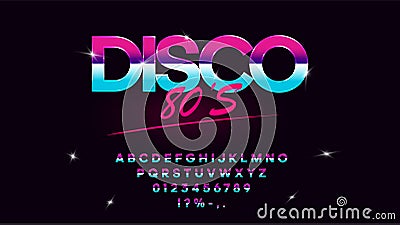
Retrowave Synthwave Vector Font In 1980s Style. Retro Design Letters, Numbers, Symbols And Set Of Lens Flare On Dark
Retrowave synthwave vector font in 1980s style. Retro design letters, numbers, symbols and set of lens flare on dark background. Type for flyer, banner, poster, cover, etc. Vector. Eps 10